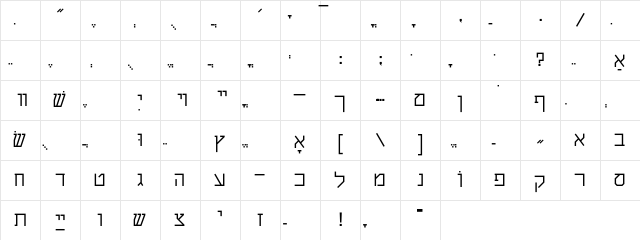
ShalomStick Regular
Design Context for ShalomStick
ShalomStick is a composed and adaptable typeface that performs quietly and consistently across a wide range of design contexts.